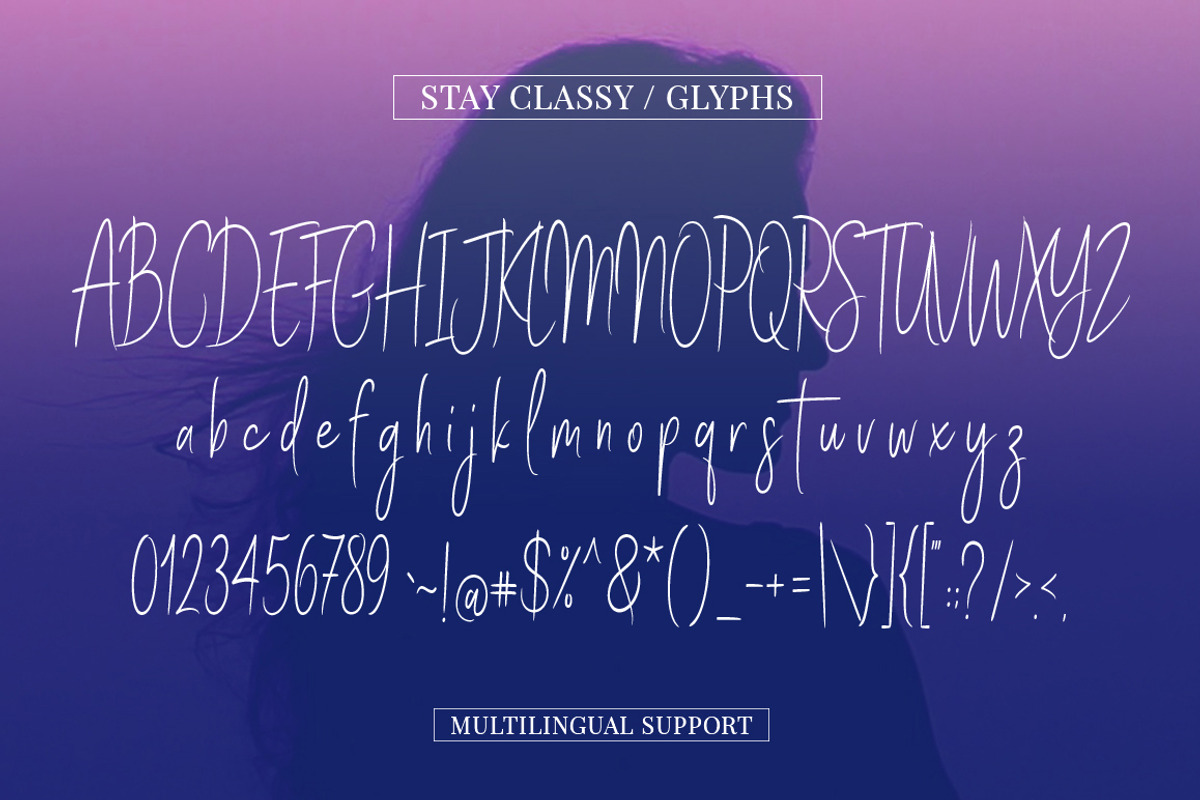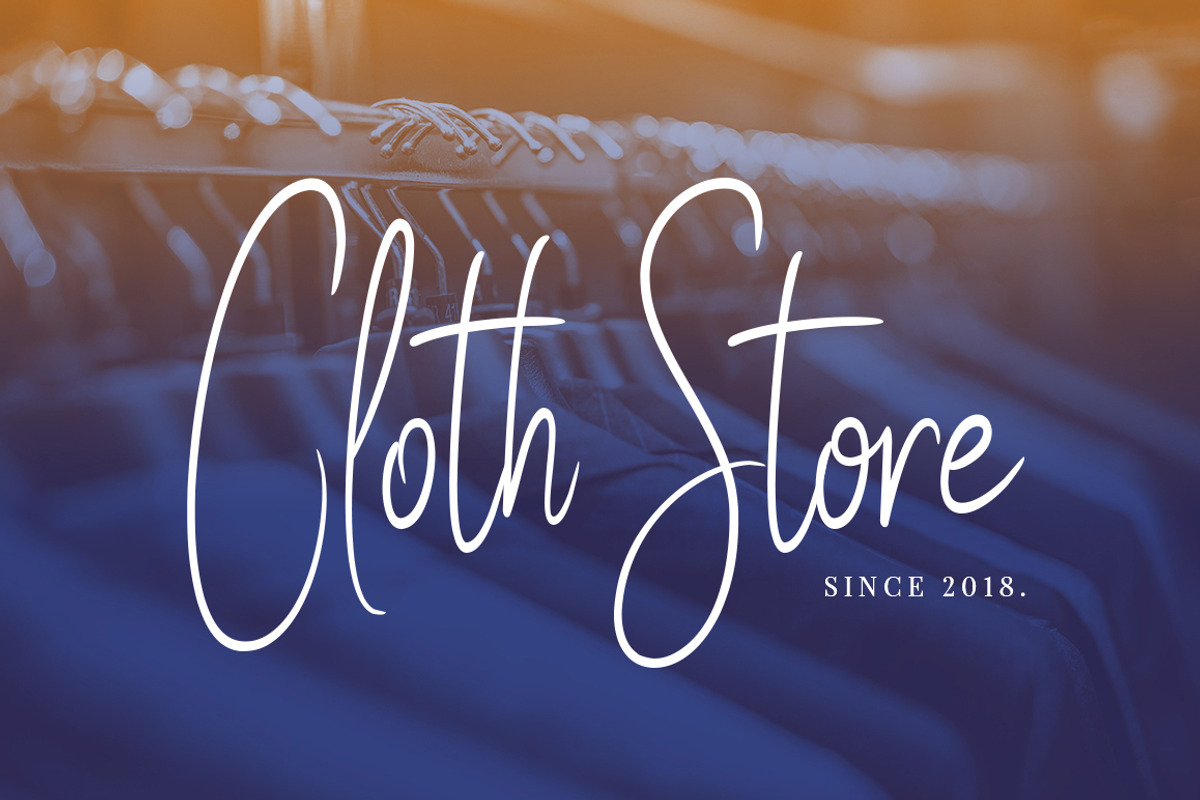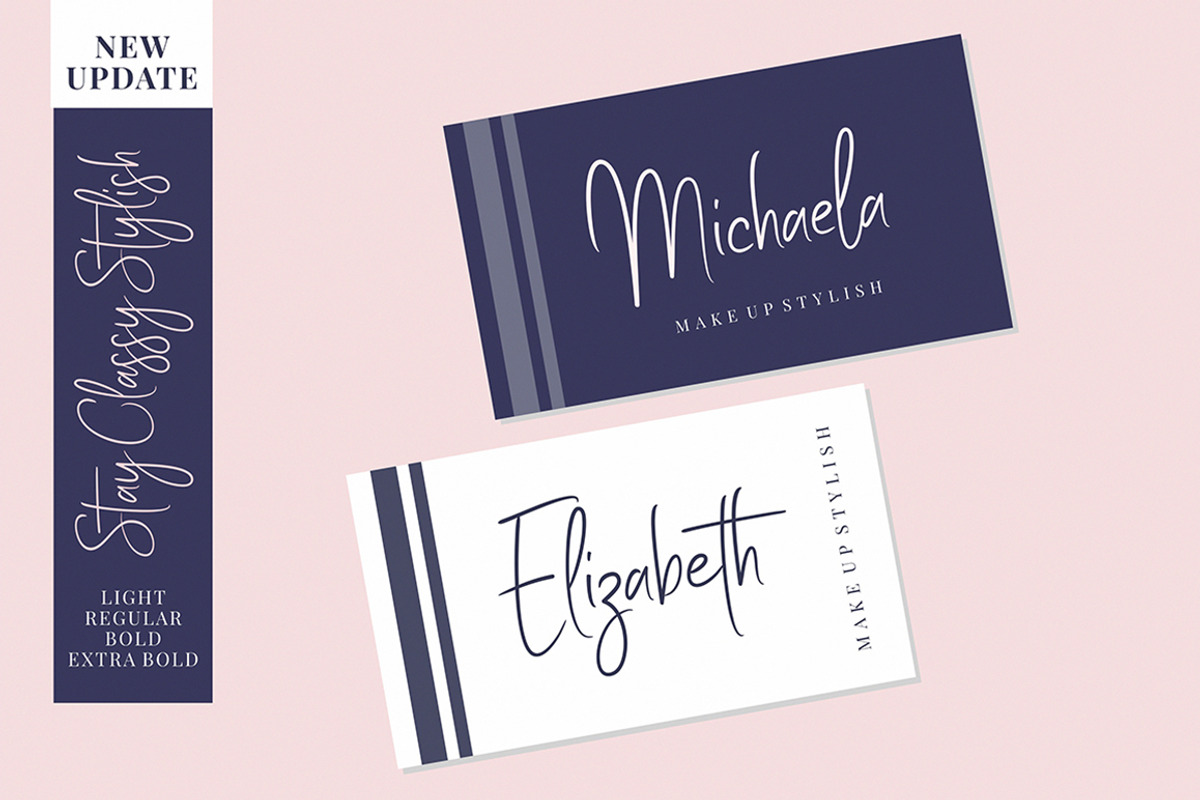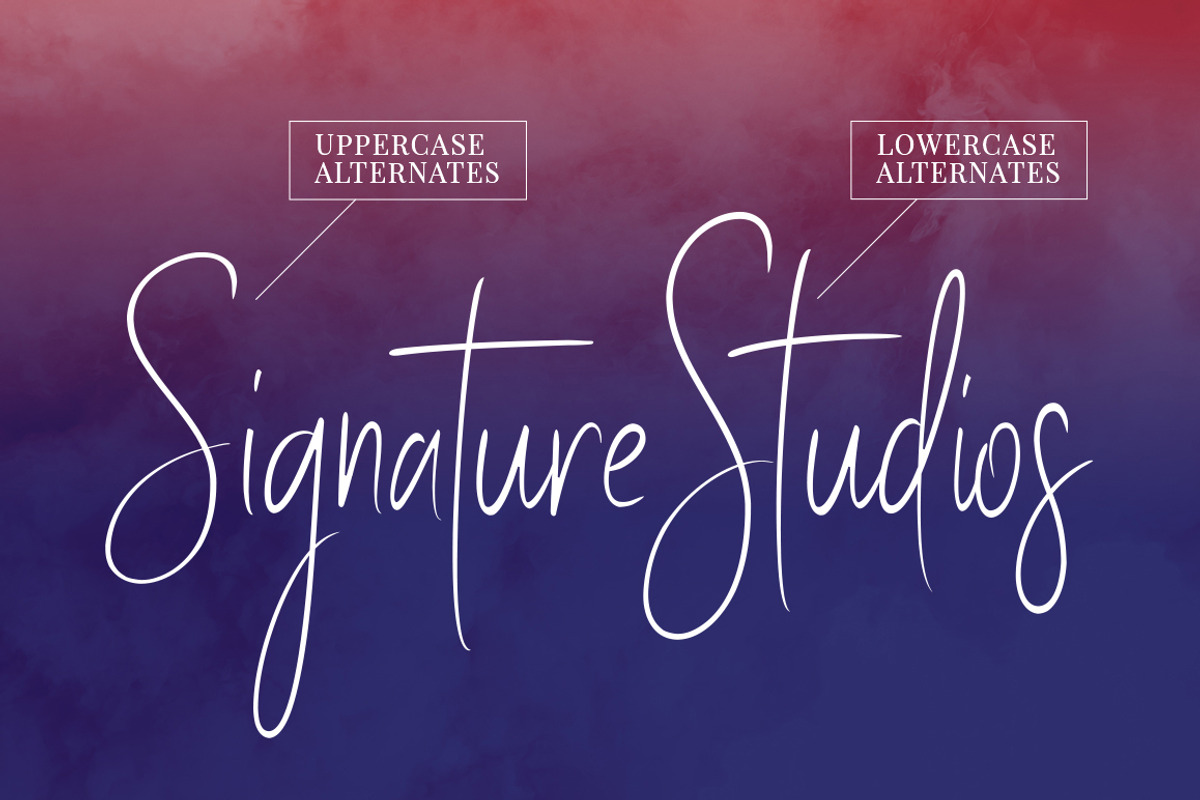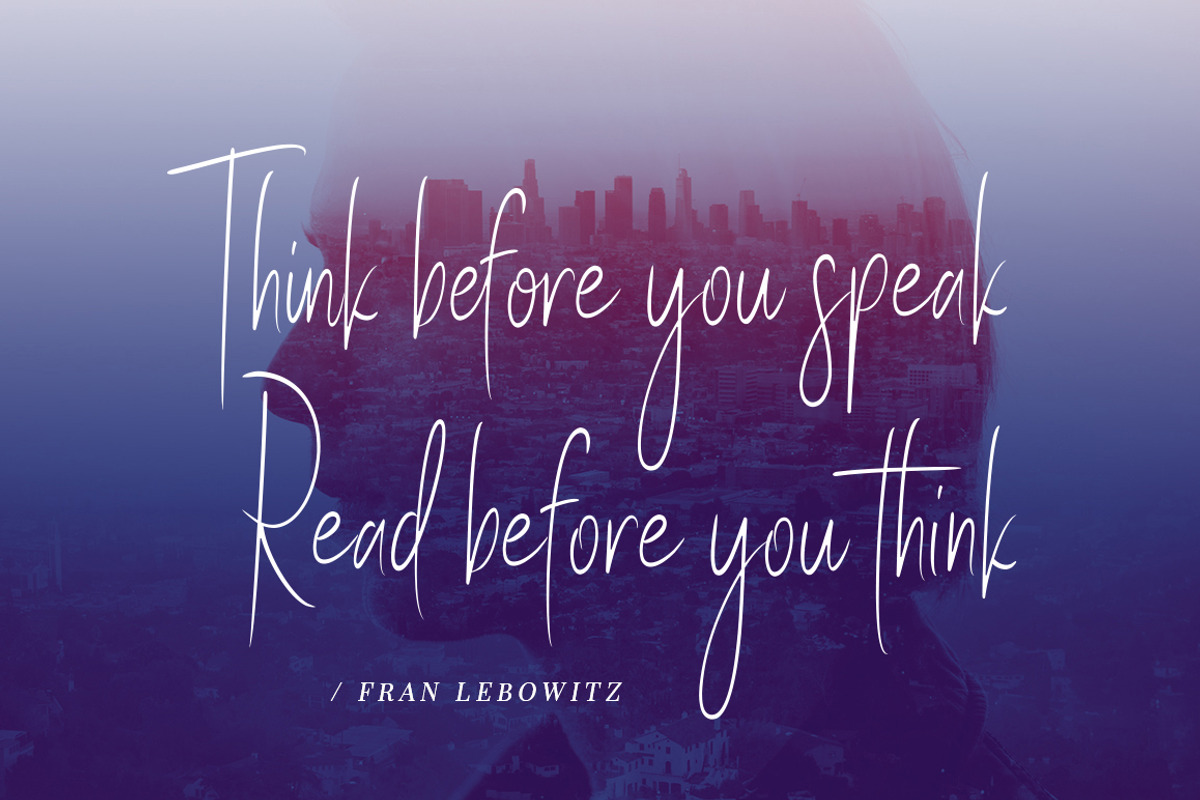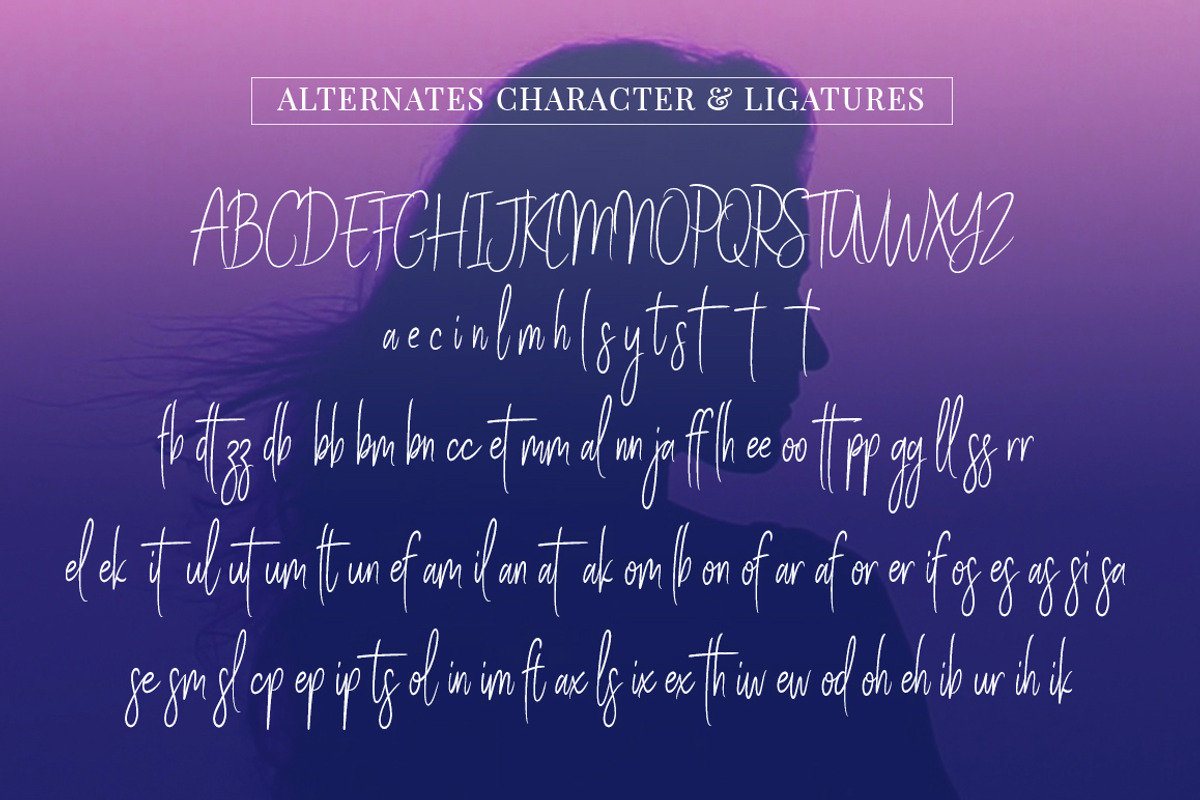
Stay Classy - Font Family
Stay Classy is a gorgeous and simple handwritten script font; contemporary and fashionable, Stay Classy looks great for a large range of project types. This elegant font is legible and looks great as a headline or in body text. This font will perfect for many different project for blogging, social media, branding, wedding invites, cards etc.
Stay Classy font including over 70 ligatures, uppercase and lowercase alternates. you need a program that supports OpenType features such as Adobe Illustrator CS, Adobe Photoshop CC, Adobe Indesign and Corel Draw X6/X7. and you can also access the alternate glyph via Font Book (Mac user) or Windows Character Map (Windows user).